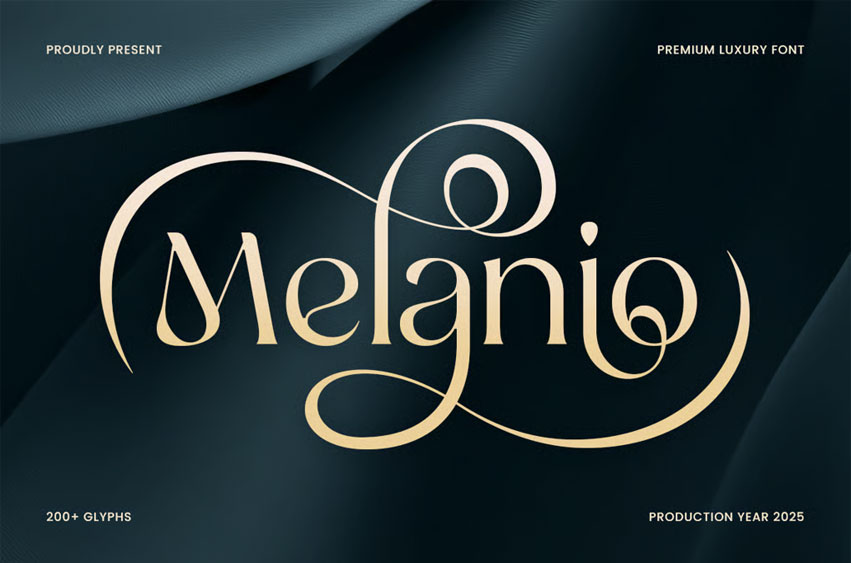
Melanio Font
Melanio Font is a premium luxury font that exudes elegance, sophistication, and timeless appeal. Perfect for high-end branding, luxury logos, and upscale design projects, Melanio offers a refined serif style that commands attention while maintaining grace and class.
Whether you’re designing for luxury brands, upscale hospitality services, or elegant product packaging, Melanio adds a touch of exclusivity to every project. Its stylish curves and balanced letterforms ensure that your designs feel both premium and professional, making it the ideal choice for the most discerning clients.
Melanio – Premium Luxury Font Features
• Elegant and refined letterforms with a luxury aesthetic
• Perfect for upscale branding, logos, and editorial design
• Includes uppercase, lowercase, numerals, and punctuation
• Sleek, high-end design with timeless appeal
• OpenType features for advanced typographic styling